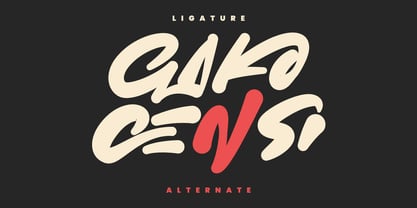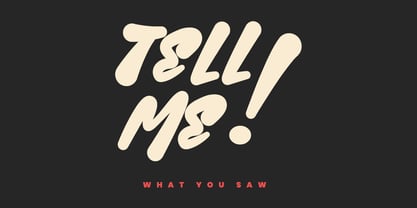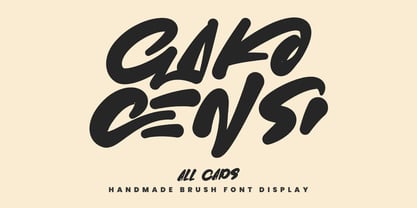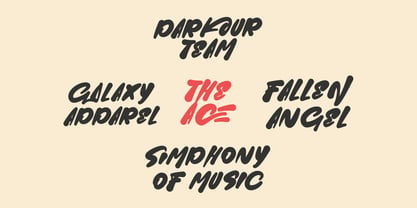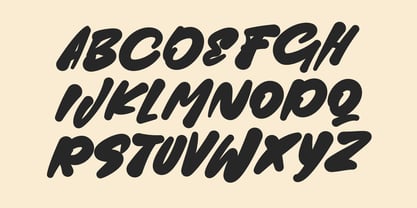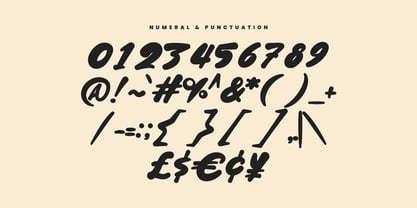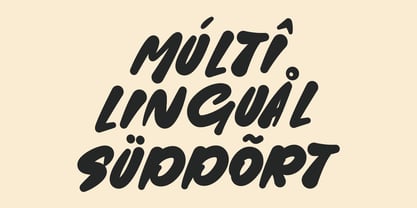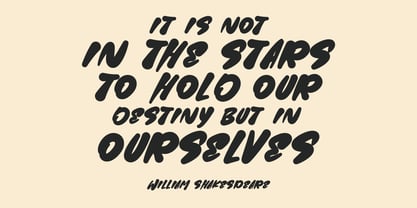
MC Gako Censi
by Maulana Creative
The MC Gako Censi Font Family was designed by Gilang Maulana and published by Maulana Creative. MC Gako Censi contains 1 styles. More about this family
Gako Censi handmade brush display font, fun character with alternates and ligatures. To give you an extra creative work. Gako Censi handmade brush display font support multilingual language.
Designers: Gilang Maulana
Foundry: Maulana Creative